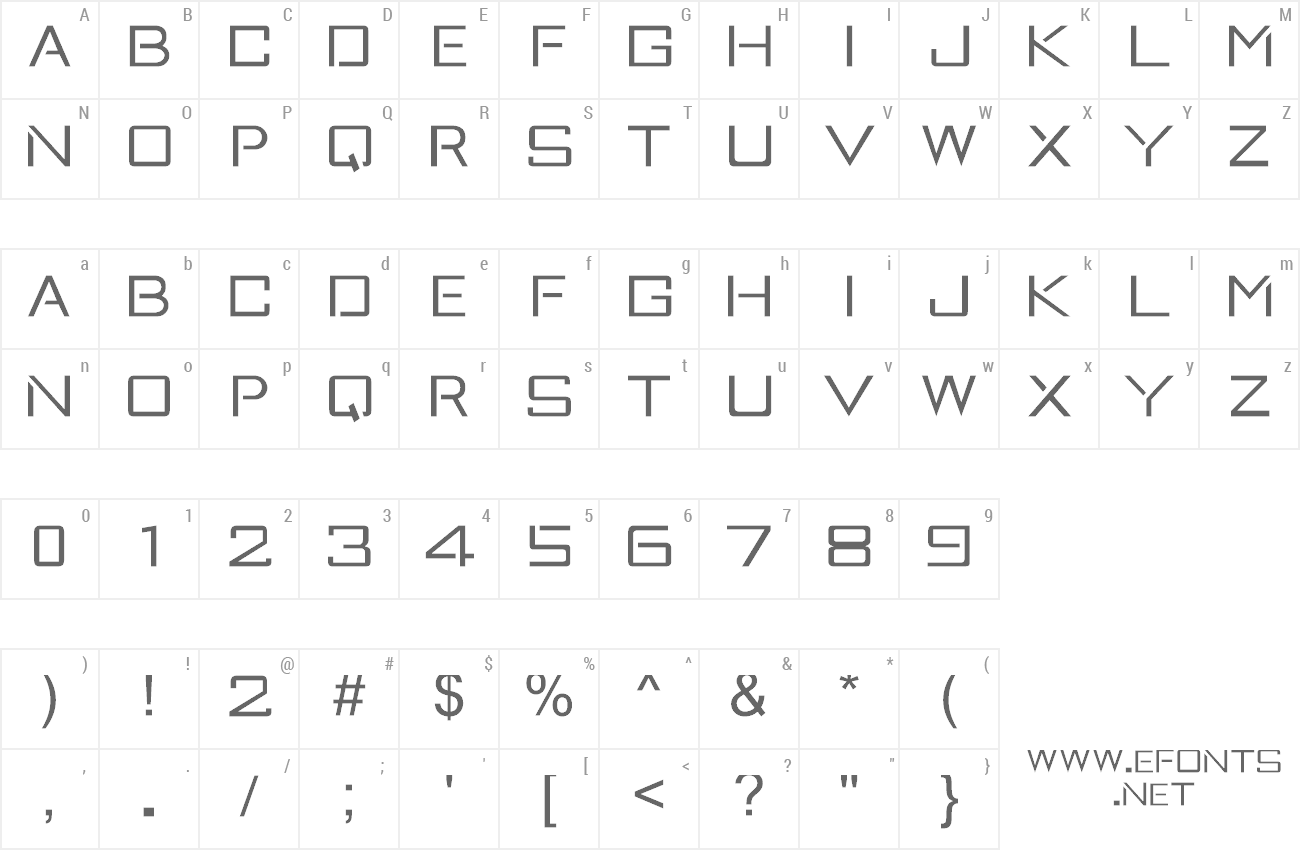
| Font name: | Xperia |
| Author: | Vladislav Jordanov |
| Note by Vladislav Jordanov | |
A font inspired by Xperia logo and devices Download the pack with the *.AI and *.EPS files: www.dwnl.vjordanov.com/xperia |